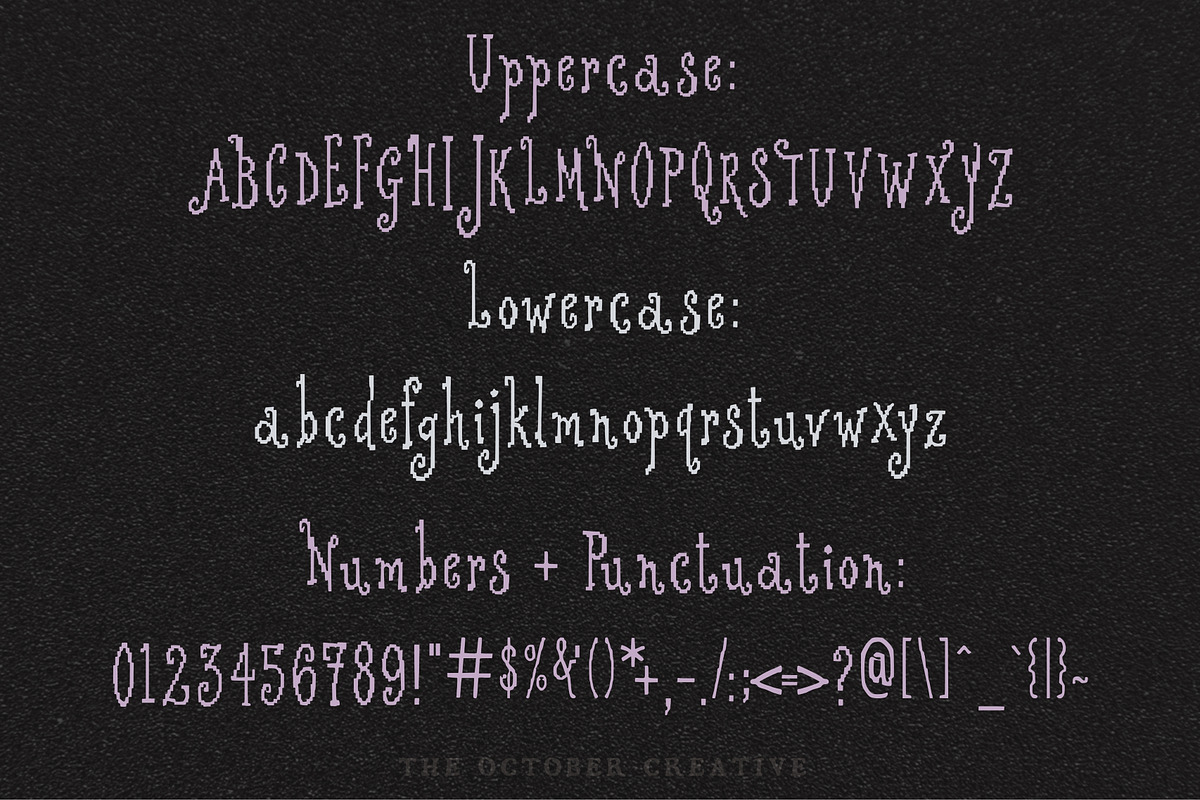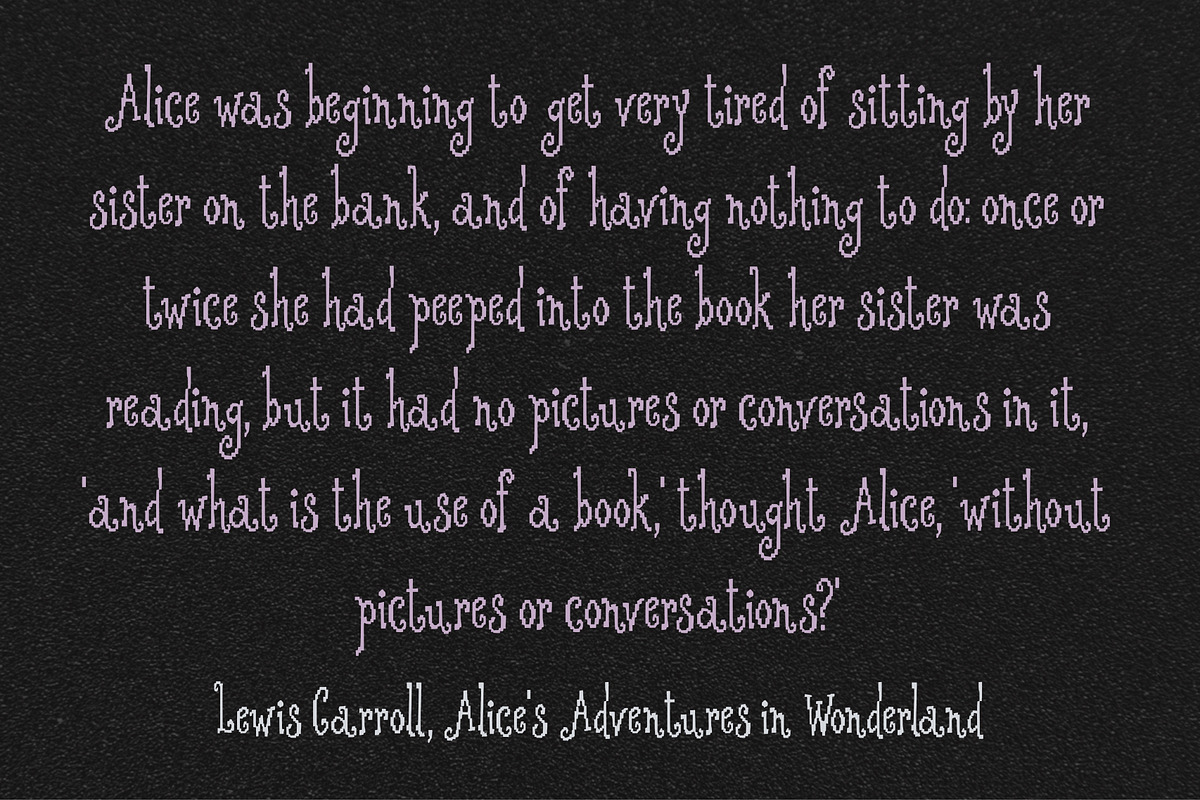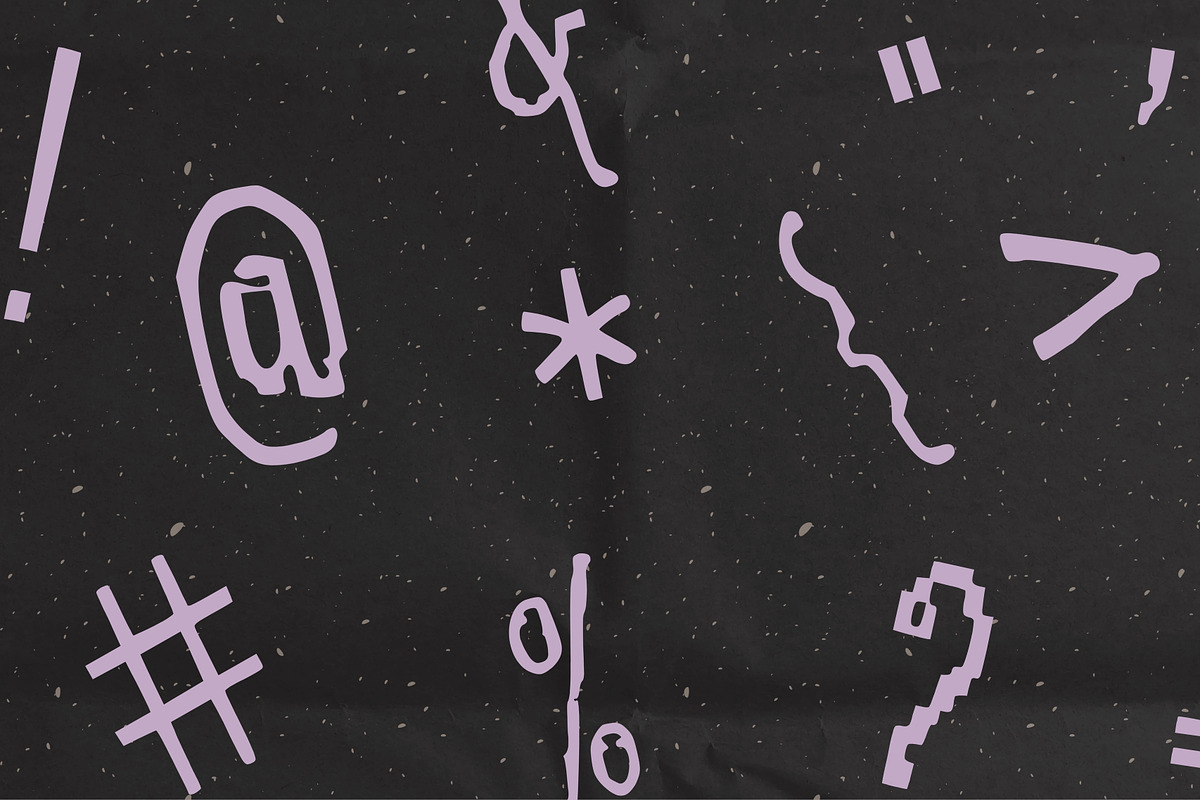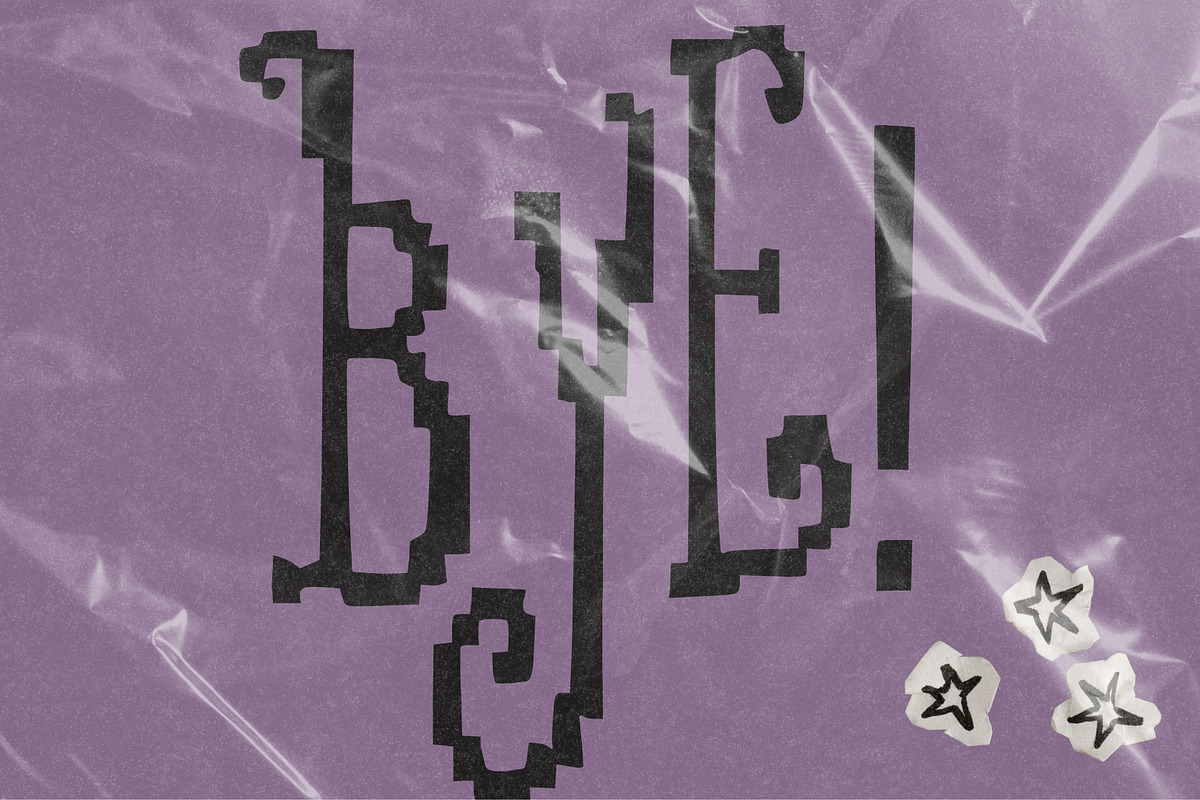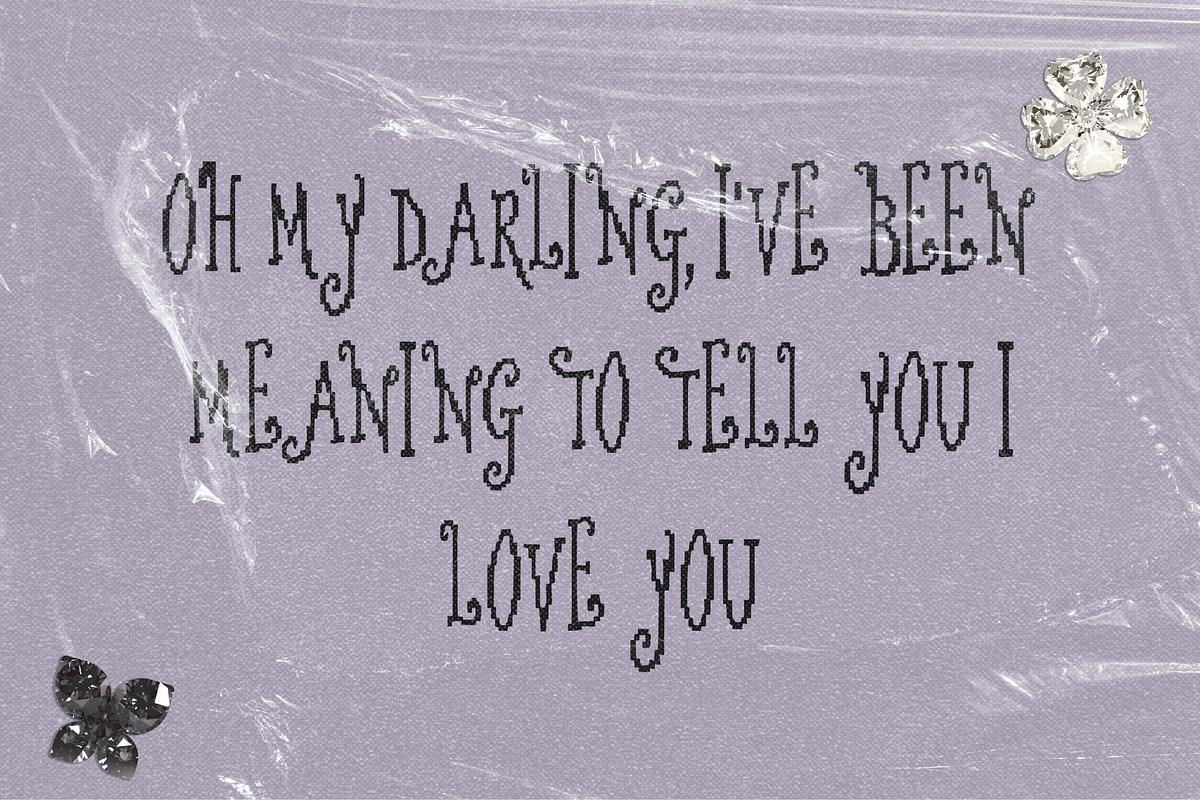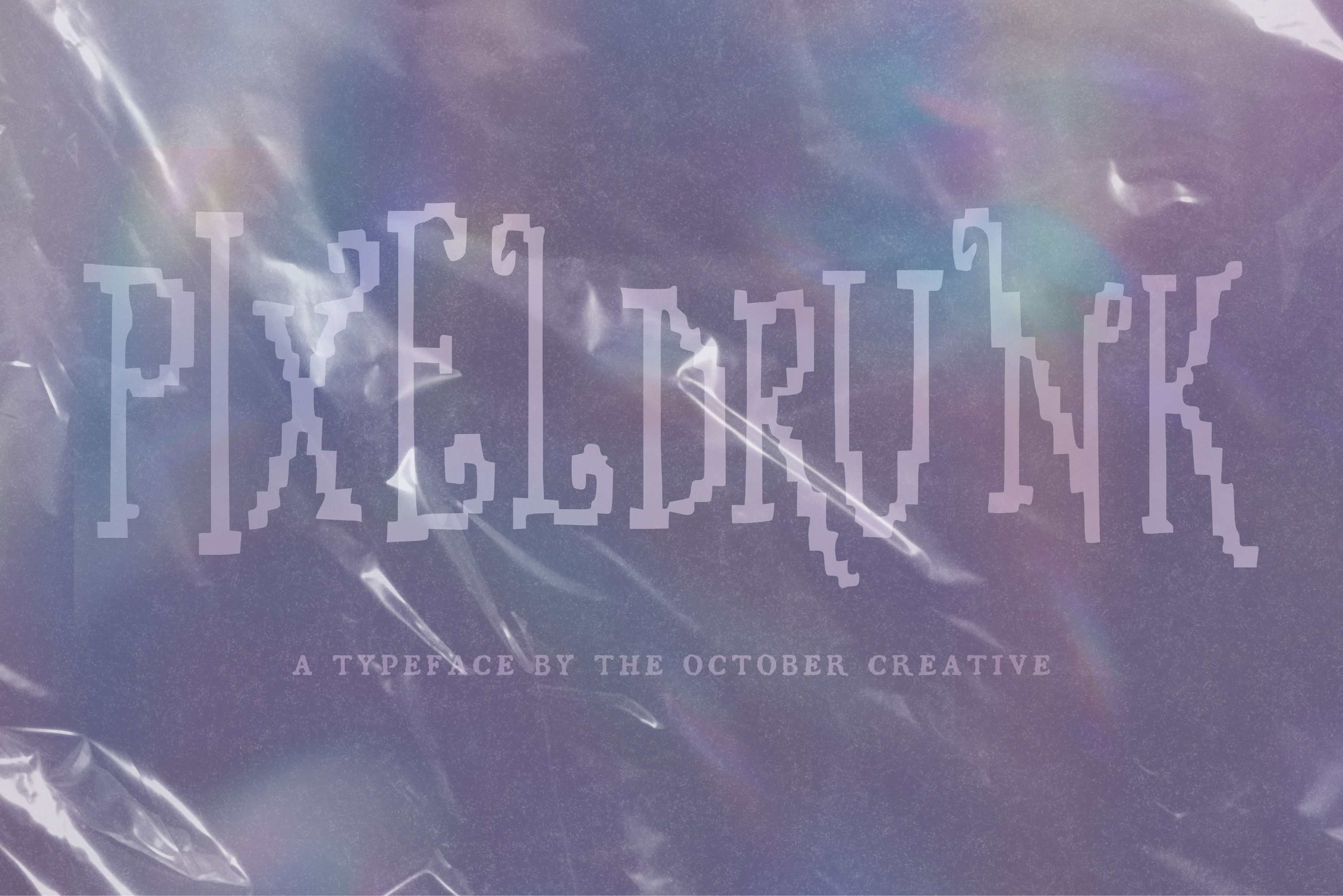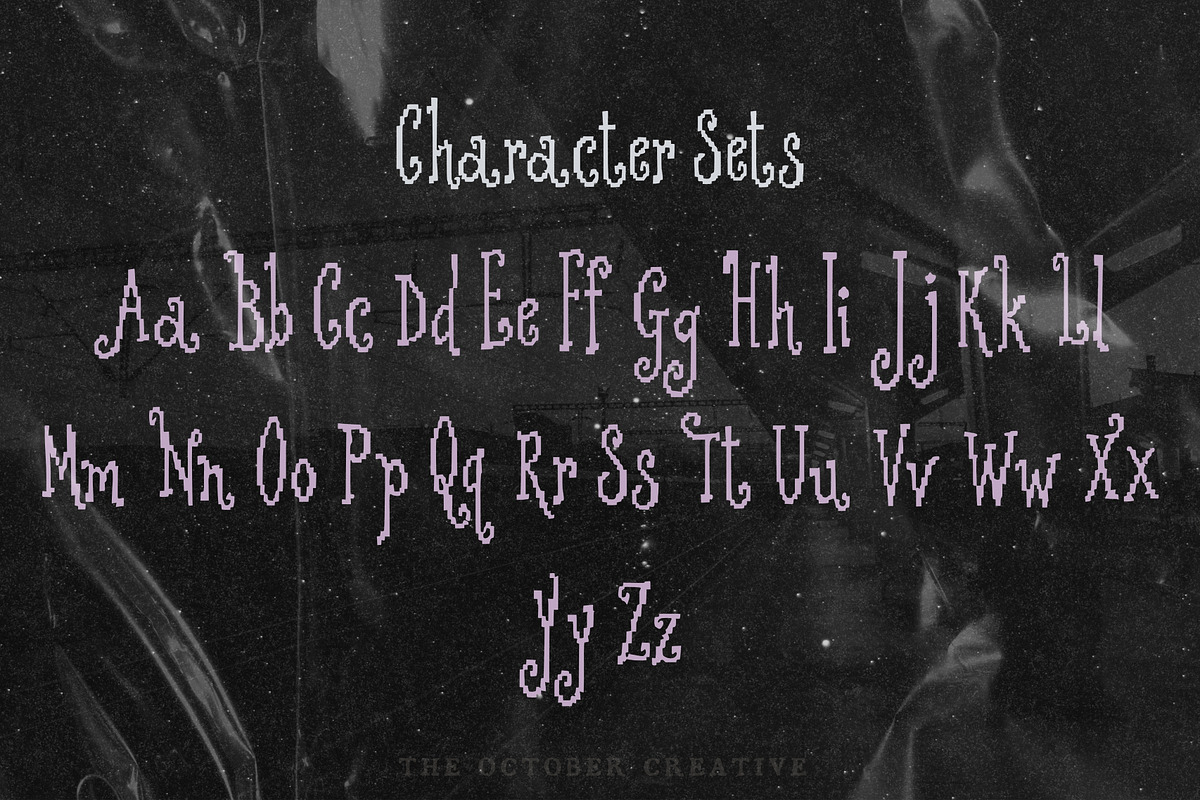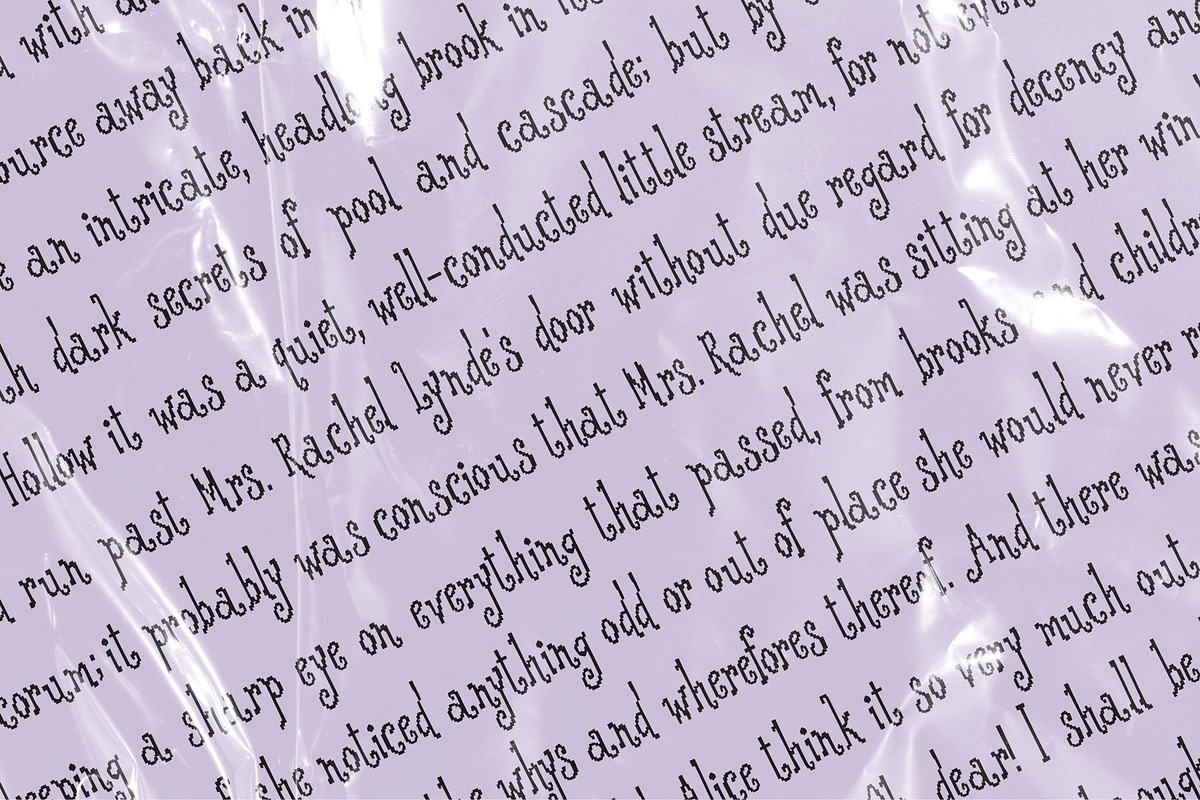
Pixeldrunk Pixel Display Font
Pixeldrunk is a pixel display font whose edges are stair-stepped into little square blocks, so the letters read as low resolution on purpose. It fits zine covers, gig flyers, sticker packs, and retro gaming prints.
CHARACTER SET
Uppercase A to Z, lowercase a to z, numerals 0 to 9, and every standard keyboard punctuation mark and symbol: ! " # $ % & ' ( ) * + , - . / : ; < = > ? @ [ \ ] ^ _ ` { | } \~
Curly quotes and apostrophes (‘ ’ “ ”), en and em dashes, an ellipsis, and a bullet.
Accented letters: À Á Â Ã Ä Å Ç È É Ê Ë Ì Í Î Ï Ñ Ò Ó Ô Õ Ö Ù Ú Û Ü and their lowercase forms.
LANGUAGES SUPPORTED
English, plus the accented vowels, Ñ, and Ç used in names and everyday words in Spanish, French, Italian, Portuguese, German, and Dutch. Not included: ß, Æ, Ø, Œ, and the upside-down ¿ and ¡.
SPECIAL CHARACTERS
There are no hidden alternates or ligatures, so every character types straight from the keyboard. Accented letters type with your keyboard's usual accent shortcuts (on a Mac, hold down the letter), or you can insert them from the Glyphs panel in your design software, the Character Viewer on a Mac, or Character Map on Windows.